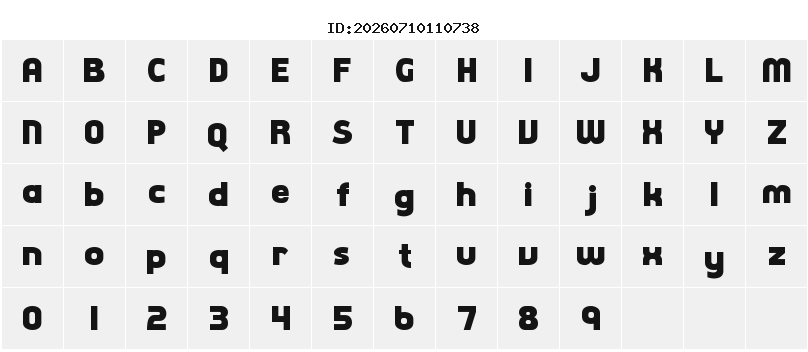
• Font Name: Eat Fresh Lowercase
• Full Font Name: Eat Fresh Lowercase
About Eat Fresh Lowercase.ttf
Eat Fresh Lowercase.ttf is a modern, elegant sans-serif font designed for ultimate readability and visual harmony. Perfect for branding, headlines, web design, and print materials.